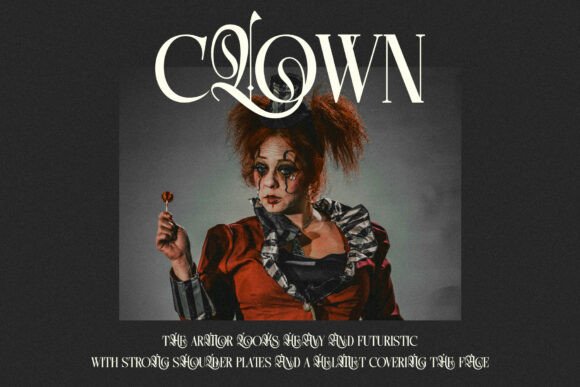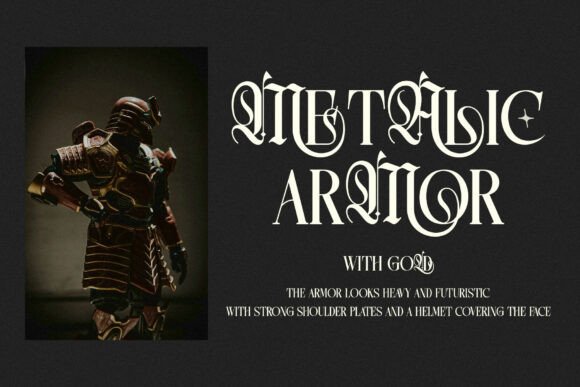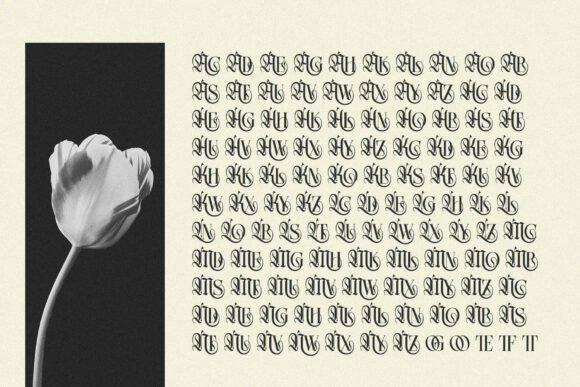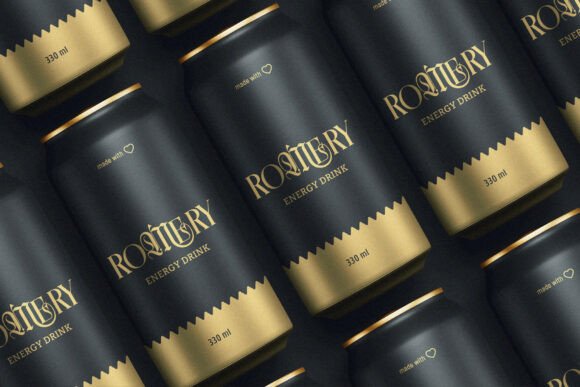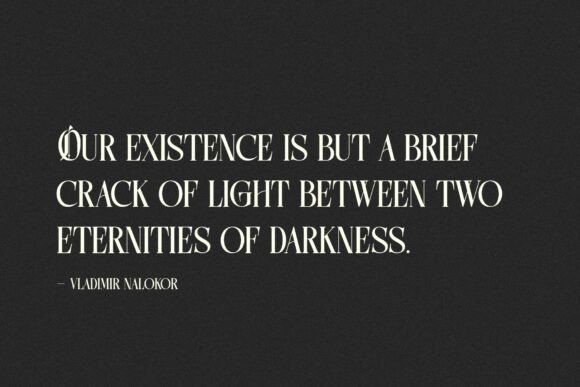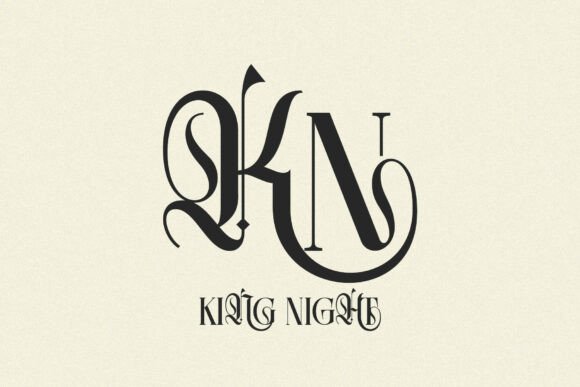
Introduction to Northvale Font
Have you ever found yourself in the midst of a creative project, pouring over endless design options, searching for that one font that perfectly captures the essence of your vision? I’m sure many designers can relate to the frustration of scrolling through page after page of fonts, only to settle for something that’s just “good enough.” But what if I told you that there’s a font out there that can elevate your design to the next level? Enter the Northvale Font, a stunning blackletter editorial serif font that’s about to become your new go-to design resource.
With its dramatic curves, sharp serifs, and ornamental swashes, the Northvale Font creates a powerful visual statement that’s sure to make your project stand out. Whether you’re working on a high-quality brochure, a website with a transparent background, or any other creative project, this font is sure to deliver. And the best part? It’s available for free download, making it an invaluable resource for designers of all levels.
Key Features of Northvale Font
- Comes in a single size, making it easy to use in a variety of design contexts, from small to large-scale projects.
- Has a resolution of 300 DPI, ensuring crisp and clear typography in both digital and print designs.
- Designed to be versatile, making it suitable for use in a range of creative projects, from branding and advertising to editorial and publishing.
Honest Review: Northvale Font
I’ve been using the Northvale Font for a while now, and I must say it’s a great addition to my design resource collection. ✨ The font is highly versatile, making it perfect for any creative project. From headings to body text, it looks great in various sizes and styles.
One of the standout features of the Northvale Font is its transparent background, which makes it easy to use with any color scheme or design element. ✨ The font is also available for free download, which is a huge plus for designers on a budget.
- May not be suitable for formal or corporate designs
- Some users may find the font too playful
- Limited character set (no Cyrillic or Asian characters)
Overall, I’m really impressed with the Northvale Font. It’s a great choice for designers looking for a high-quality, creative font. With its transparent background and free download option, it’s a must-have in any design resource collection. ⚠️ Just be aware of the limitations, and you’ll be good to go!
Getting the Most Out of Northvale Font
For the best results, use the Northvale Font on a transparent background to create a clean and modern look. Experiment with different font sizes, colors, and styles to find the perfect combination for your creative project.
The Northvale Font is ideal for creative projects such as logos, brochures, business cards, and social media graphics. Its high-quality design makes it perfect for professional and personal projects alike.